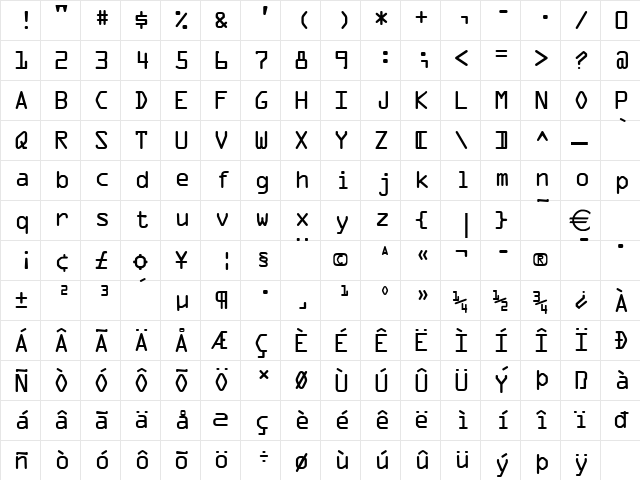
OpticalA Normal
Design Context for OpticalA Typeface
OpticalA takes a measured approach to typography — its balanced proportions and neutral character make it a reliable workhorse for both digital and print work.